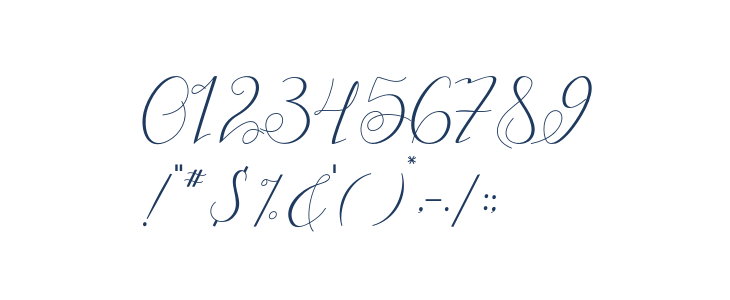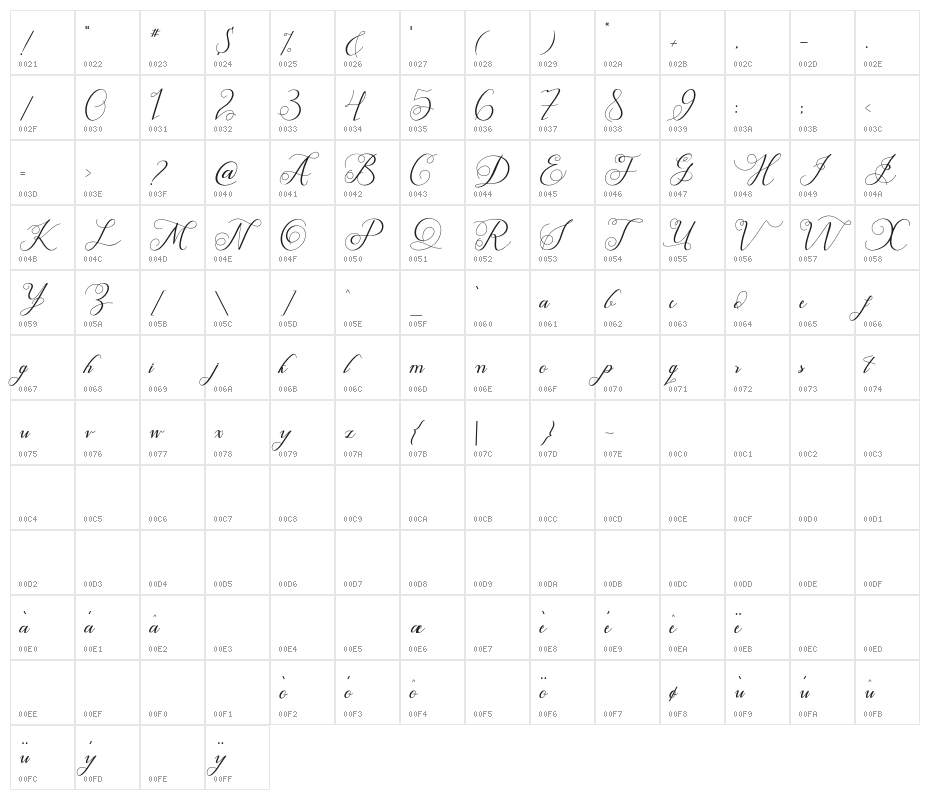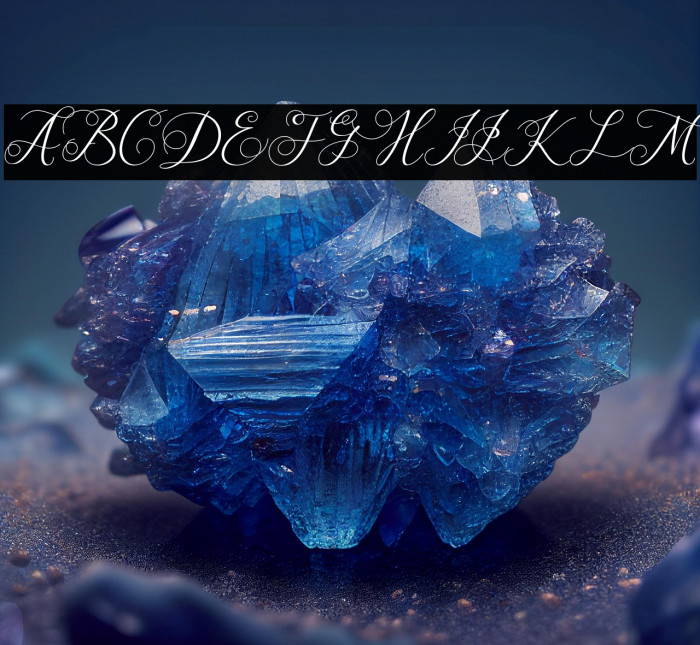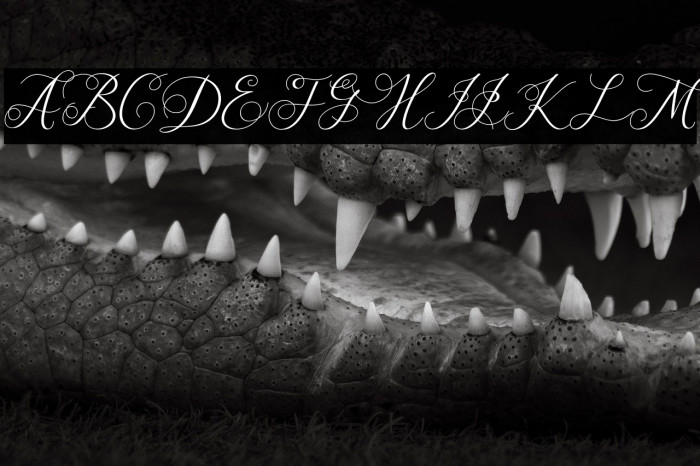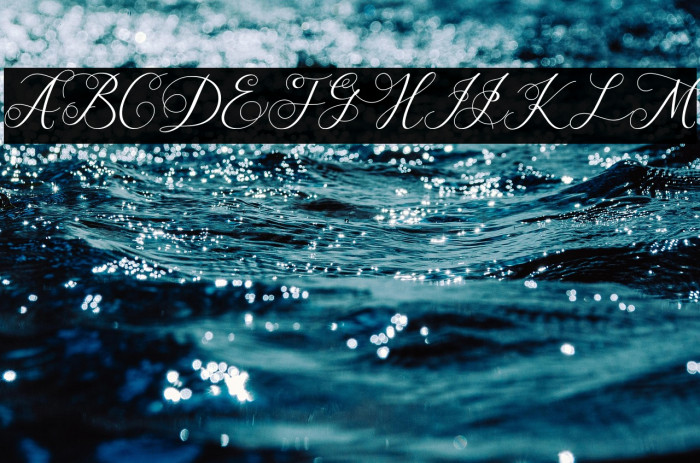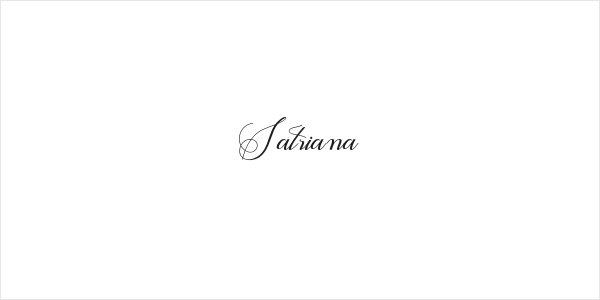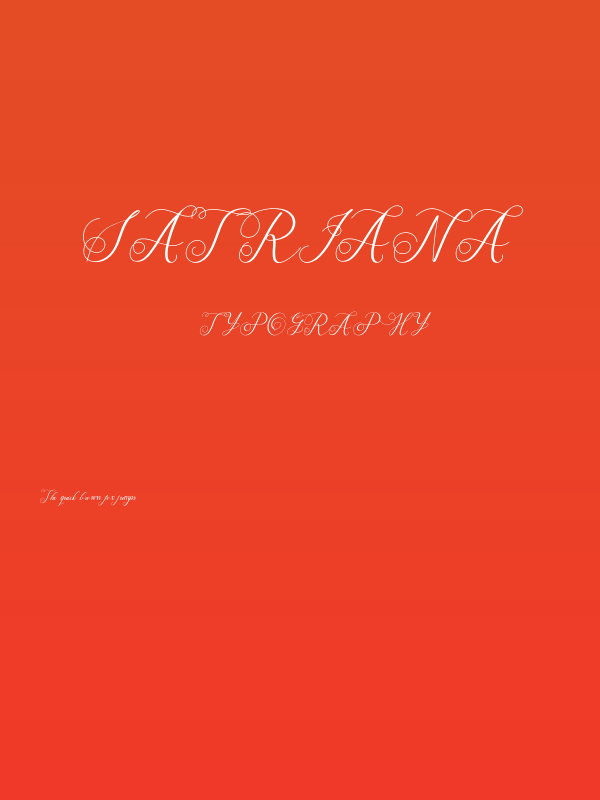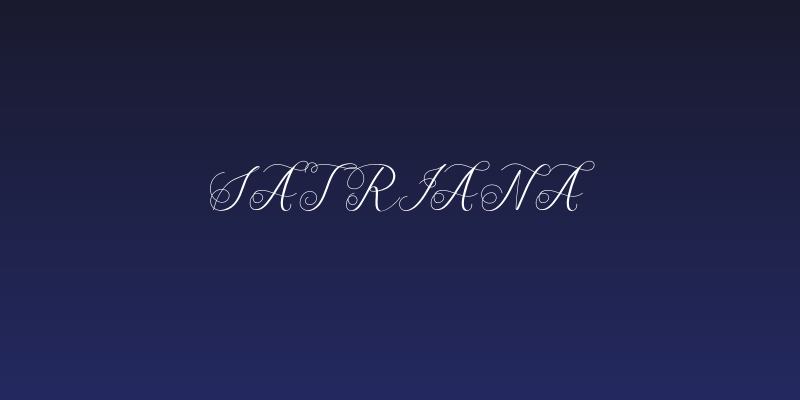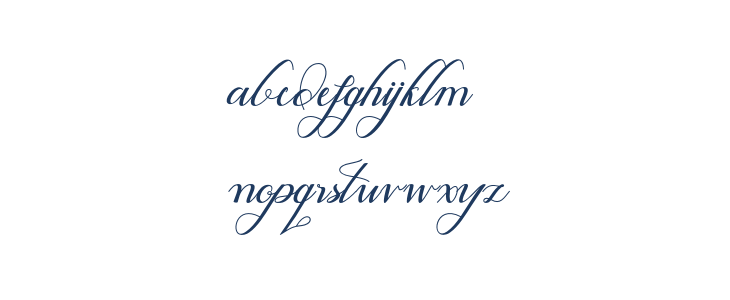
Satriana Font
Satriana Description
This elegant script font features intricate swirls and flourishes, creating a sophisticated and decorative appearance. The uppercase letters are particularly ornate, with loops and curves that add a sense of movement and grace. The lowercase letters maintain a consistent style, offering a more streamlined yet still decorative look. Numbers and special characters are designed with similar flourishes, ensuring a cohesive aesthetic throughout. The font's delicate lines and high contrast between thick and thin strokes contribute to its refined and luxurious feel, making it ideal for formal invitations, branding, and high-end product packaging.
| Use Case | Headlines, Invitations, Branding |
| Proposed Projects | Ideal for wedding invitations, luxury branding, high-end product packaging, and decorative headlines. |